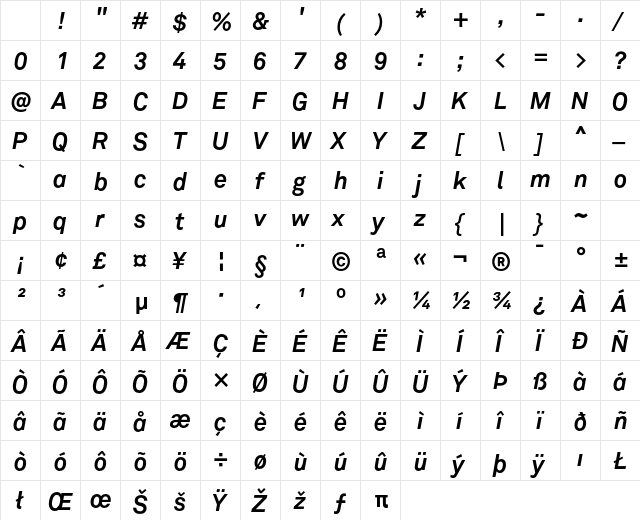
Complete Akkurat Bold Italic glyph index. Displaying only characters natively supported by Akkurat Bold Italic font.
Akkurat is a composed and adaptable typeface that performs quietly and consistently across a wide range of design contexts. The slanted form adds forward momentum and visual energy. Its bold stroke weight gives it real presence on the page.
Pro Tip: Use Akkurat for emphasis, pull quotes, and subheadings where its slanted energy can add rhythm to the layout.